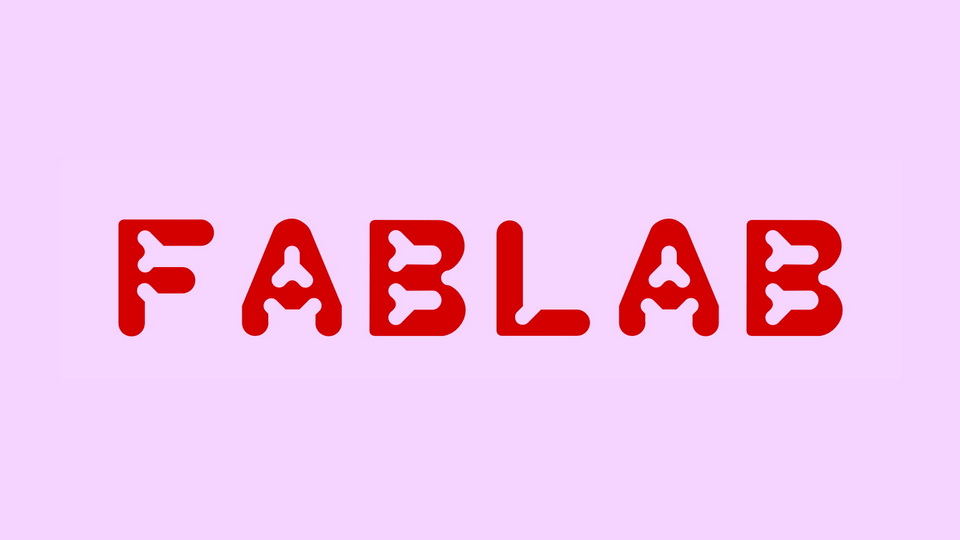
Download Fablab font, a display typeface designed in FreeCad. The shapes of the letters were thought to be fine for CNC milling, 3D printing and lasercut.
Designer: Amélie Dumont